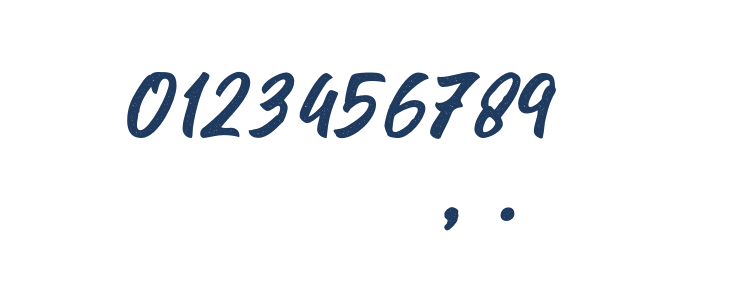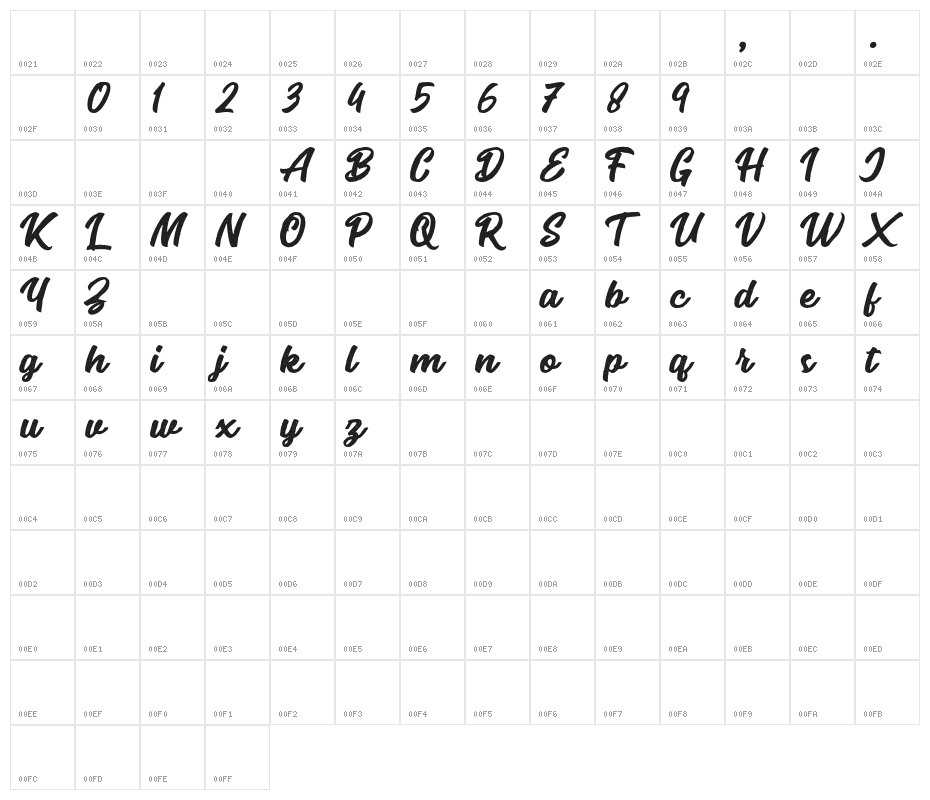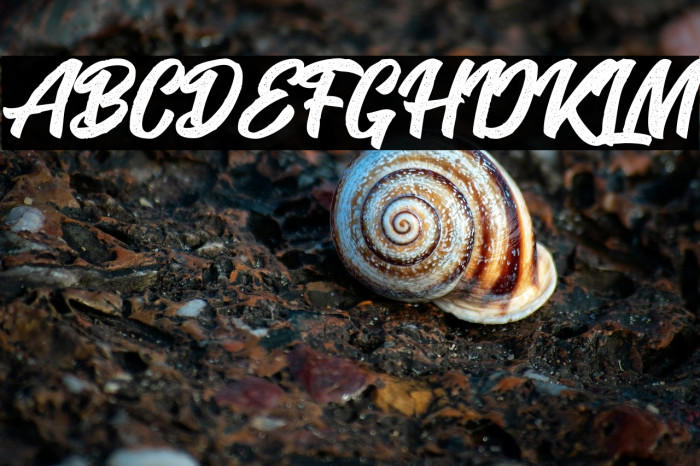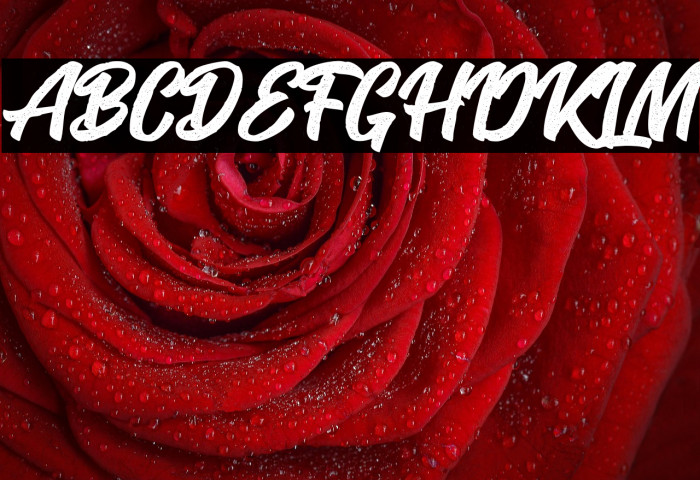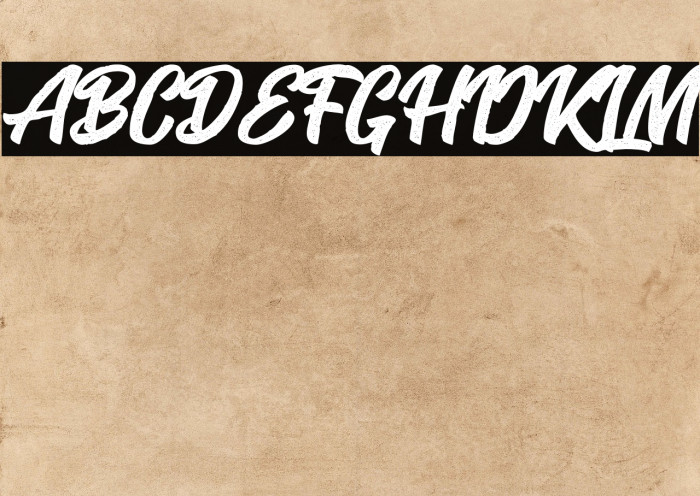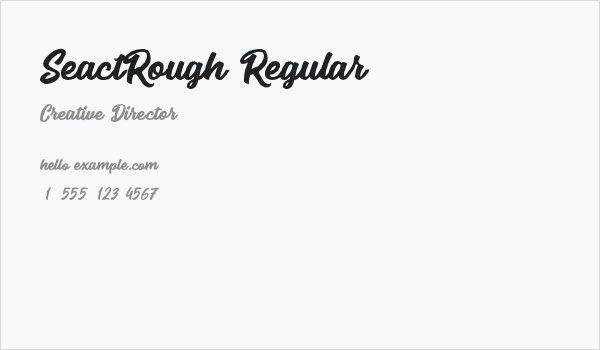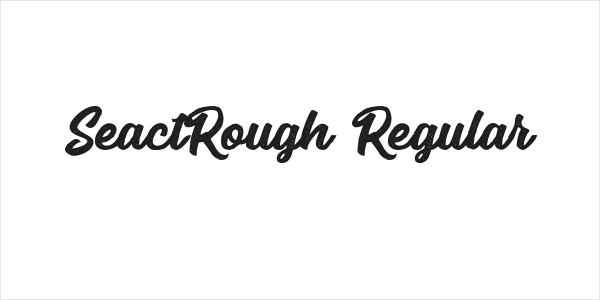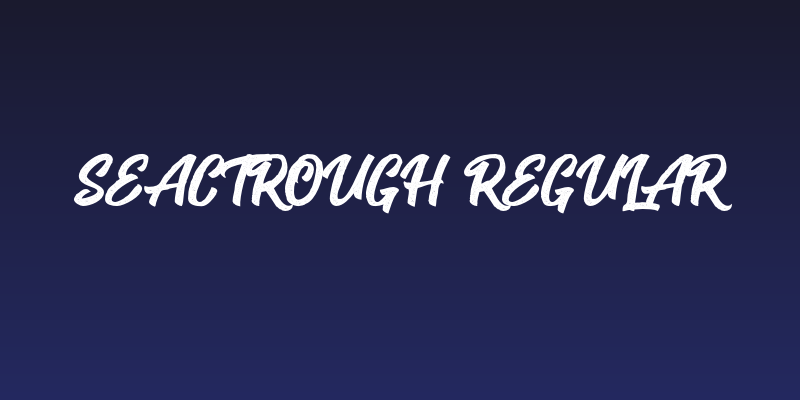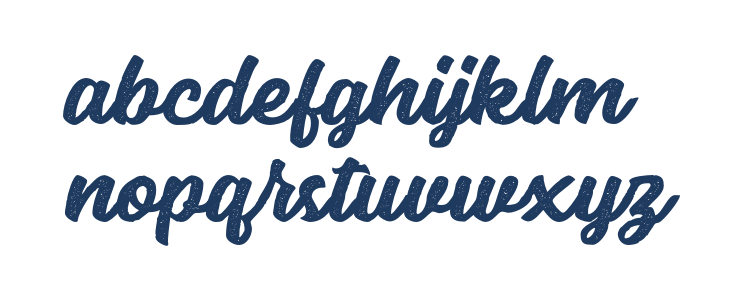
SeactRough-Regular Font
SeactRough-Regular Description
This font features a bold, textured script style that exudes a hand-drawn, artistic flair. The letters are connected in a fluid manner, reminiscent of traditional calligraphy but with a modern twist. The rough texture adds a vintage, rustic feel, making it ideal for designs that require a personal touch. The uppercase and lowercase letters maintain a consistent flow, while the numerals and special characters complement the overall aesthetic. This font is perfect for creating eye-catching headlines, logos, and branding materials that need a distinctive and creative edge.
Overall StyleVintage
Proposed ProjectsIdeal for branding, logos, packaging design, and creative headlines.